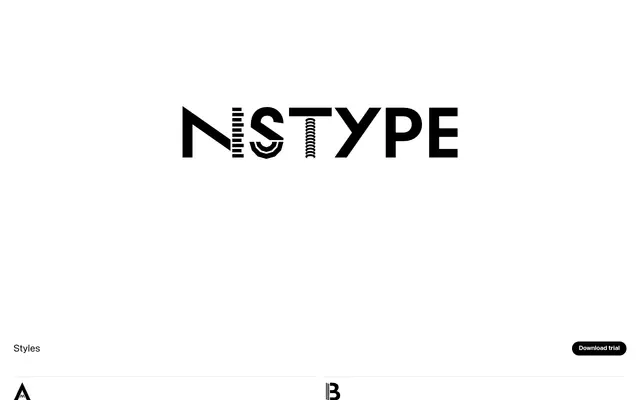
NSType specimen from Production Type
A grid-based, monolinear display type system created for the Nuit Sonores festival in Lyon, with architectural stroke details and rhythmic segmentation across four subfamilies.
Developed over three years by Lyon studio Superscript² as the typographic identity for the Nuit Sonores electronic music and design festival, NSType is built entirely from monolinear capitals on a rigid grid. The two main subfamilies replace conventional strokes with architectural fragments drawn from Lyon's built environment, while NSType Mono divides strokes at rhythmic intervals to evoke beats and sound. Each subfamily ships in two fonts, A and B, with contrasting forms assigned to upper- and lowercase slots, yielding eight mixable variants per capital letter.
Monolinear capitals built on a rigid grid structure, with stylised strokes derived from architectural forms and rhythmic divisions evoking music — unambiguously a display typeface conceived for visual expression rather than continuous text.